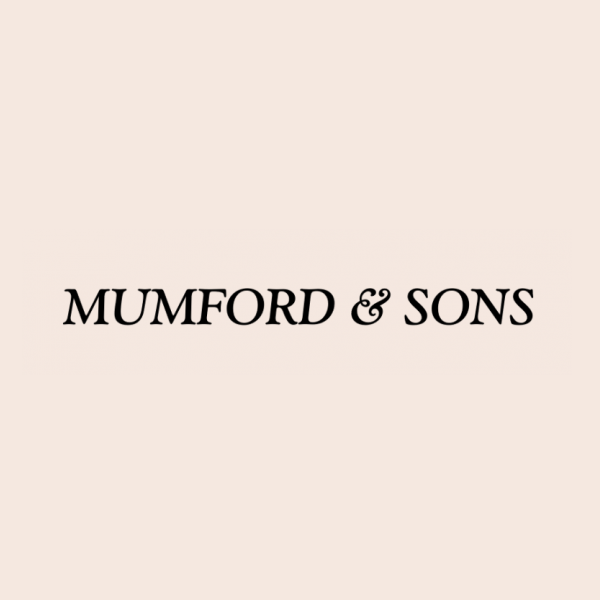
Mumford & Sons Font
BandMumford & Sons is a British folk rock band founded in London in 2007. Ben Lovett, Ted Dwane, and Marcus Mumford make up the band at the moment.
The band's name appears in all caps in the classic old-style typeface Goudy Old Style Bold Italic as seen in the Mumford & Sons main logo. The logo also appears on releases "Sign No More" (2009) and "Babel" (2012).